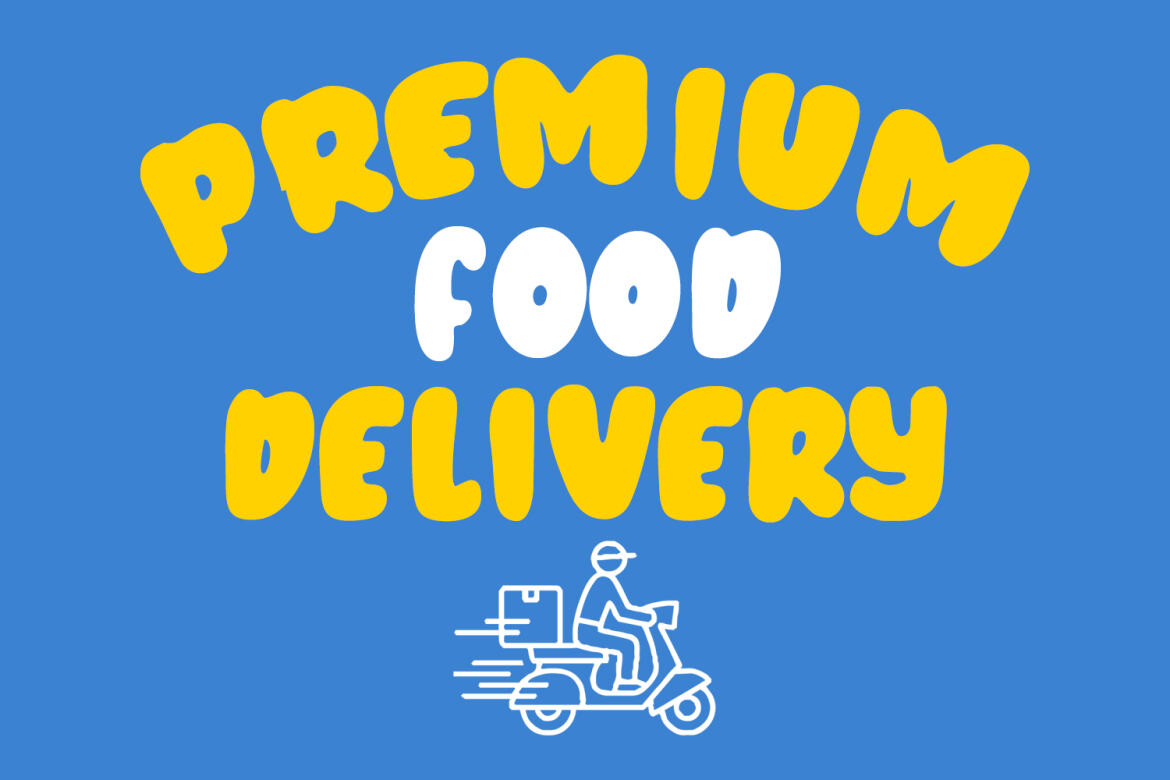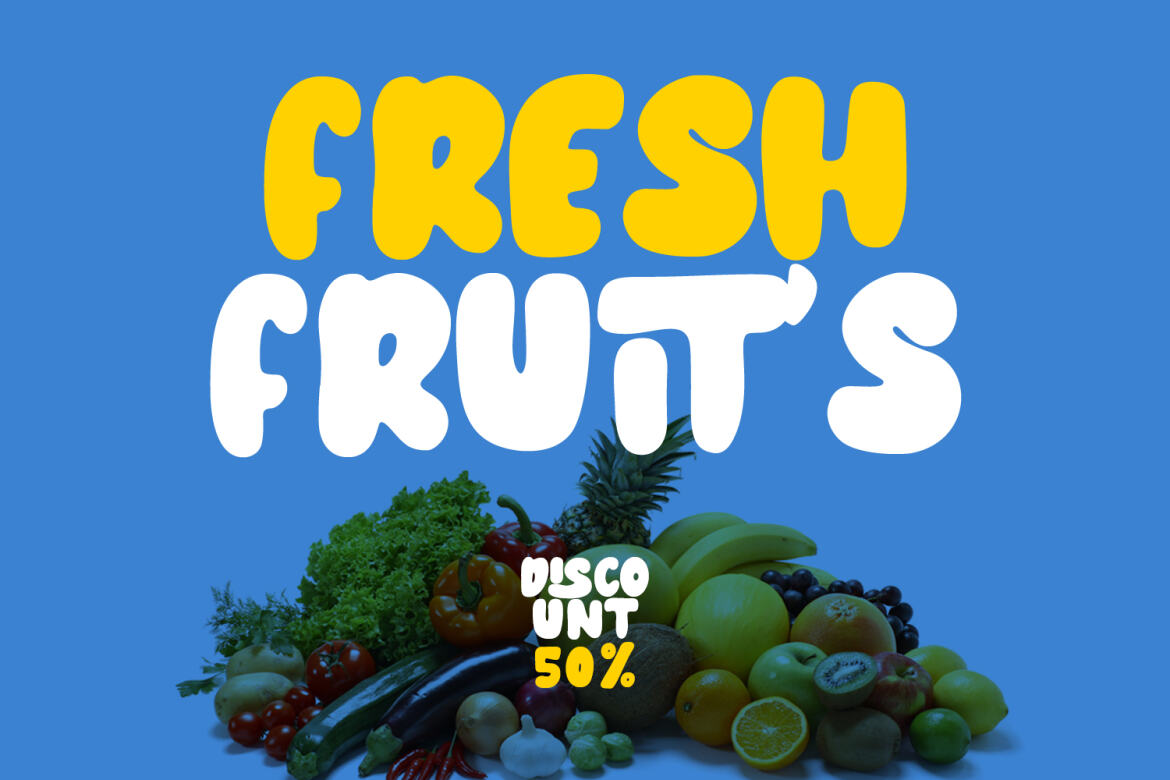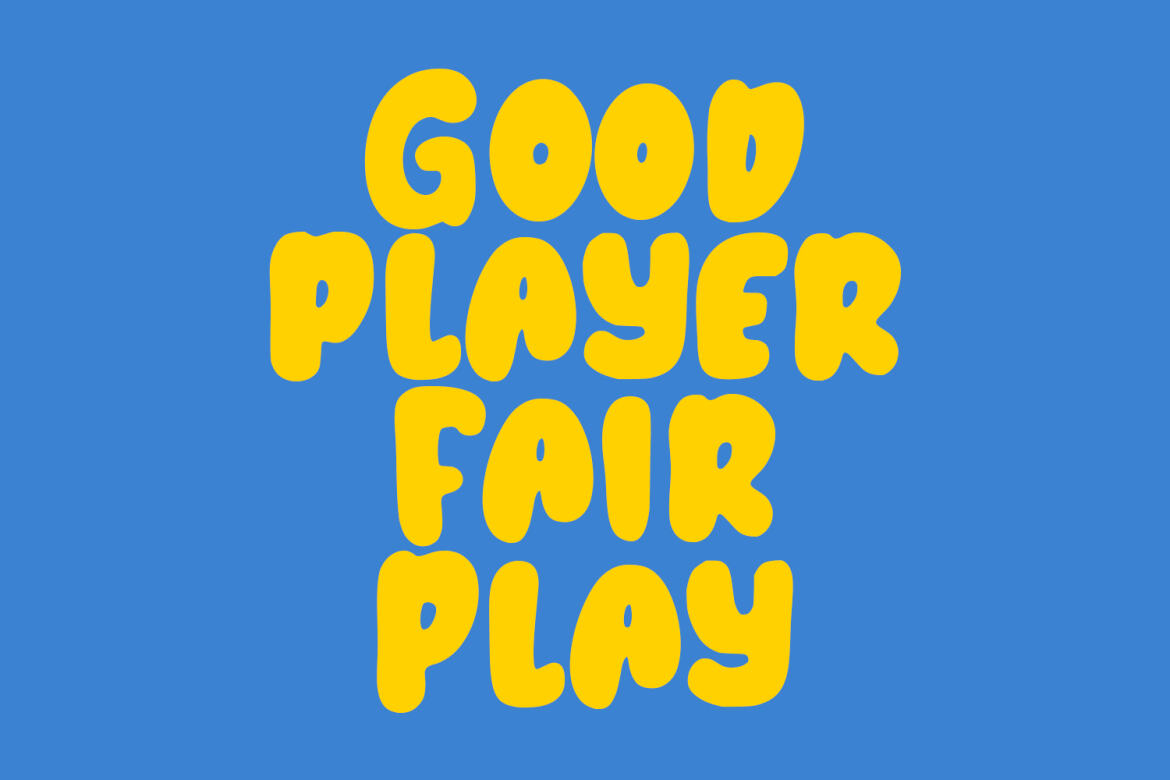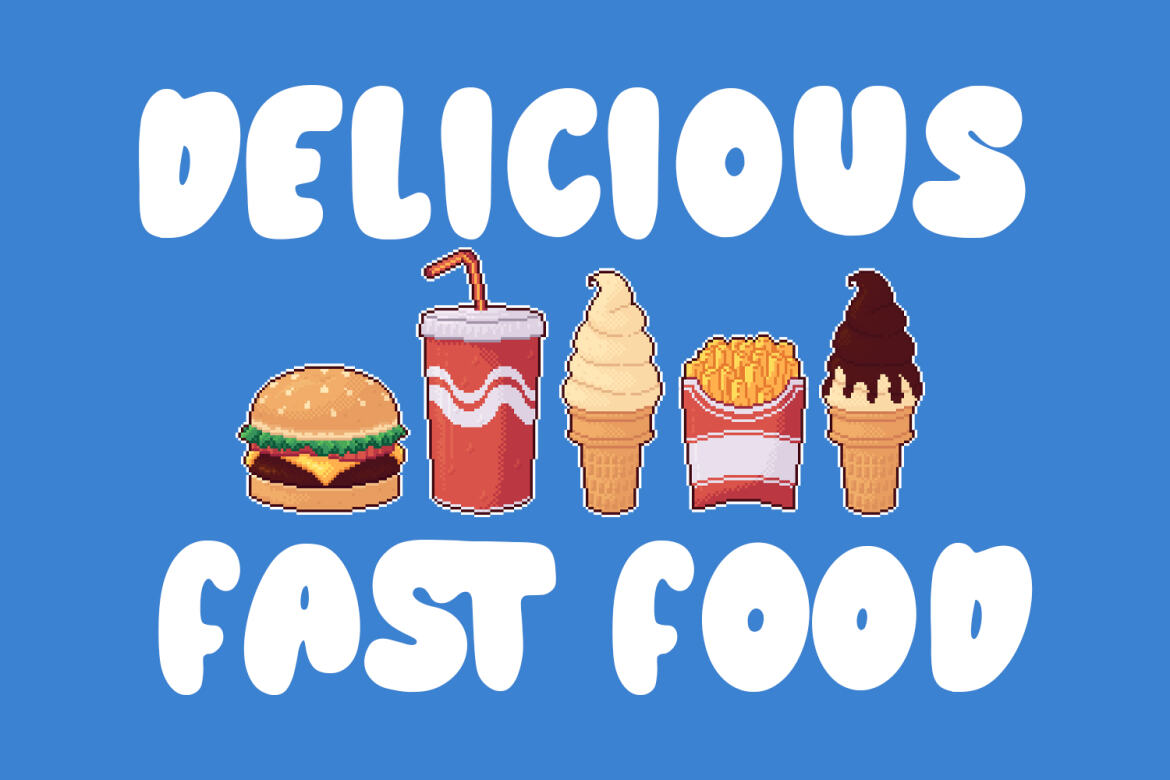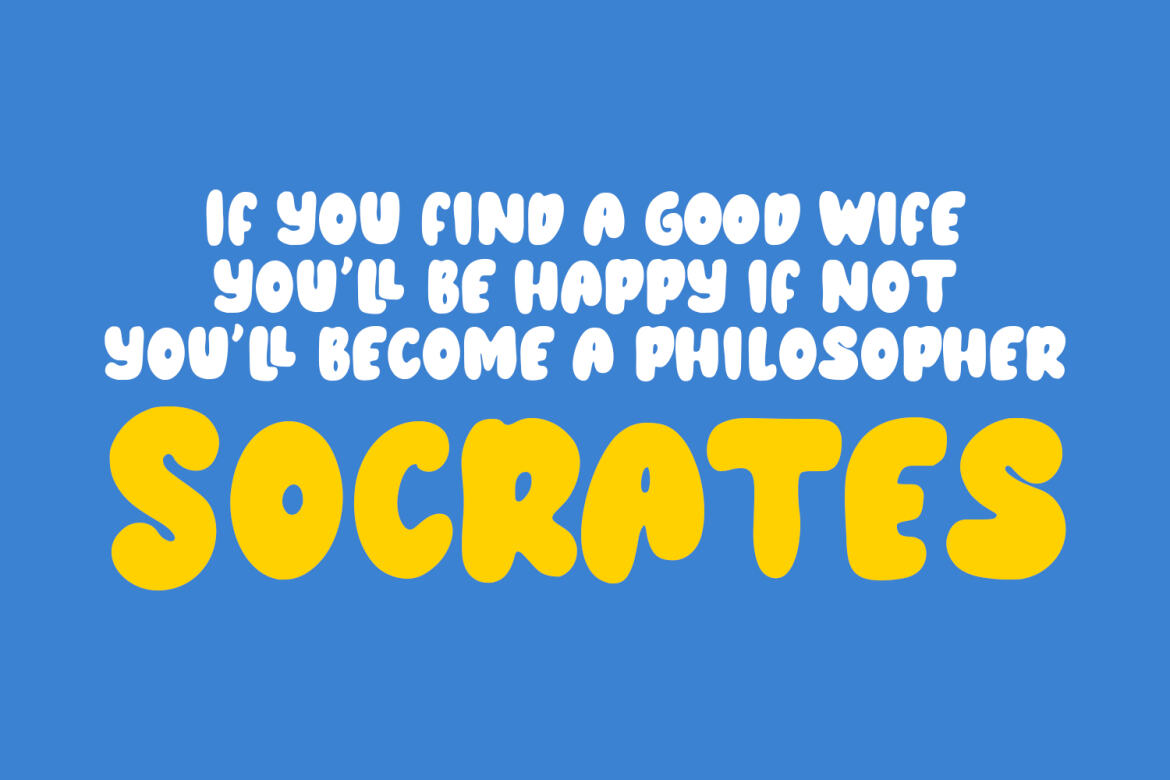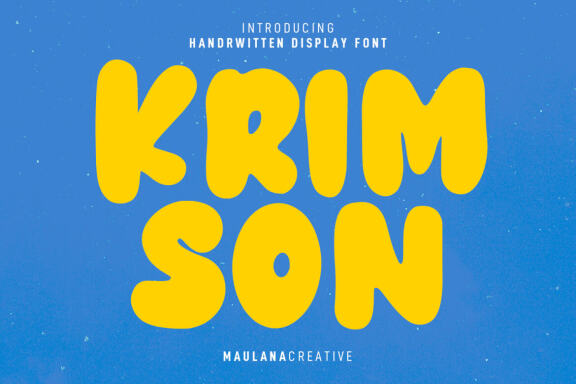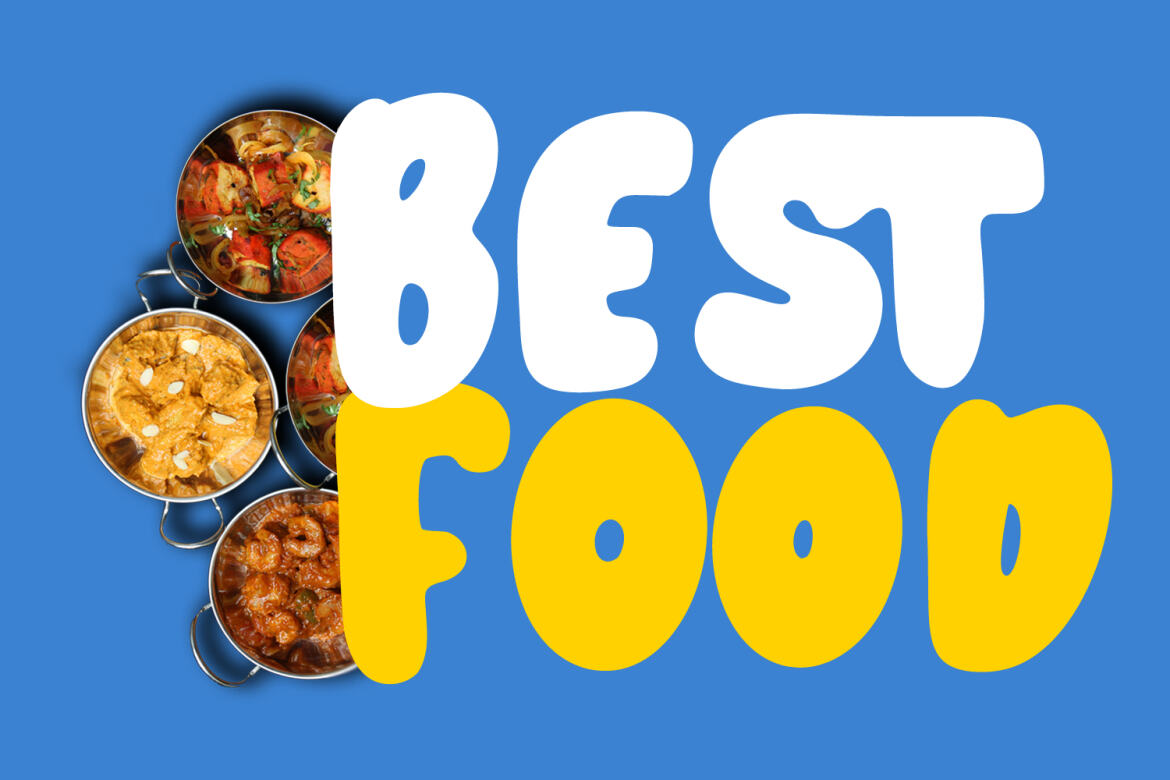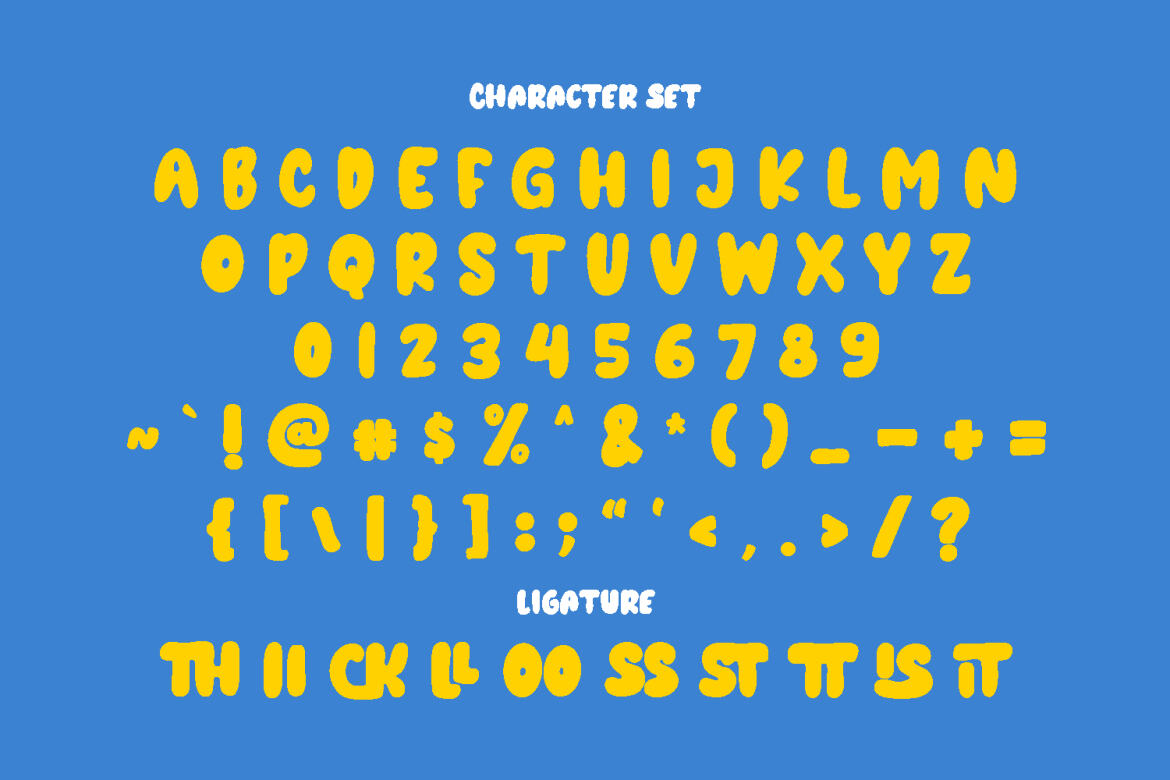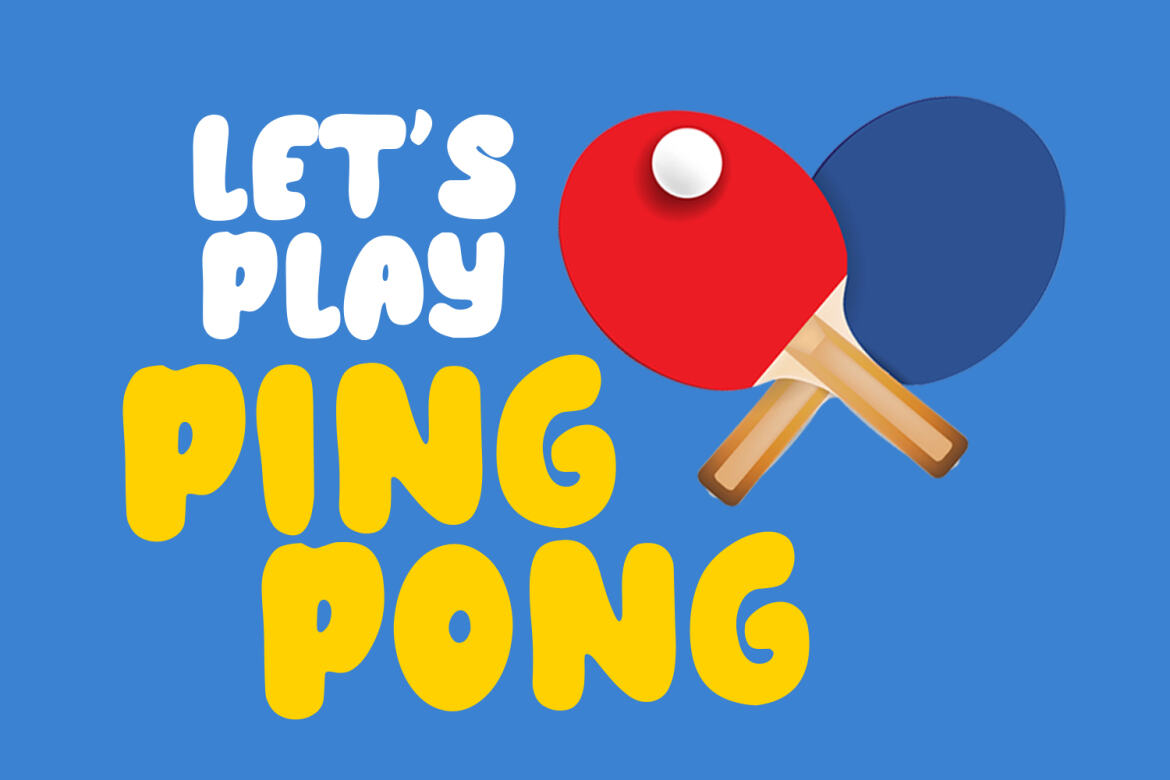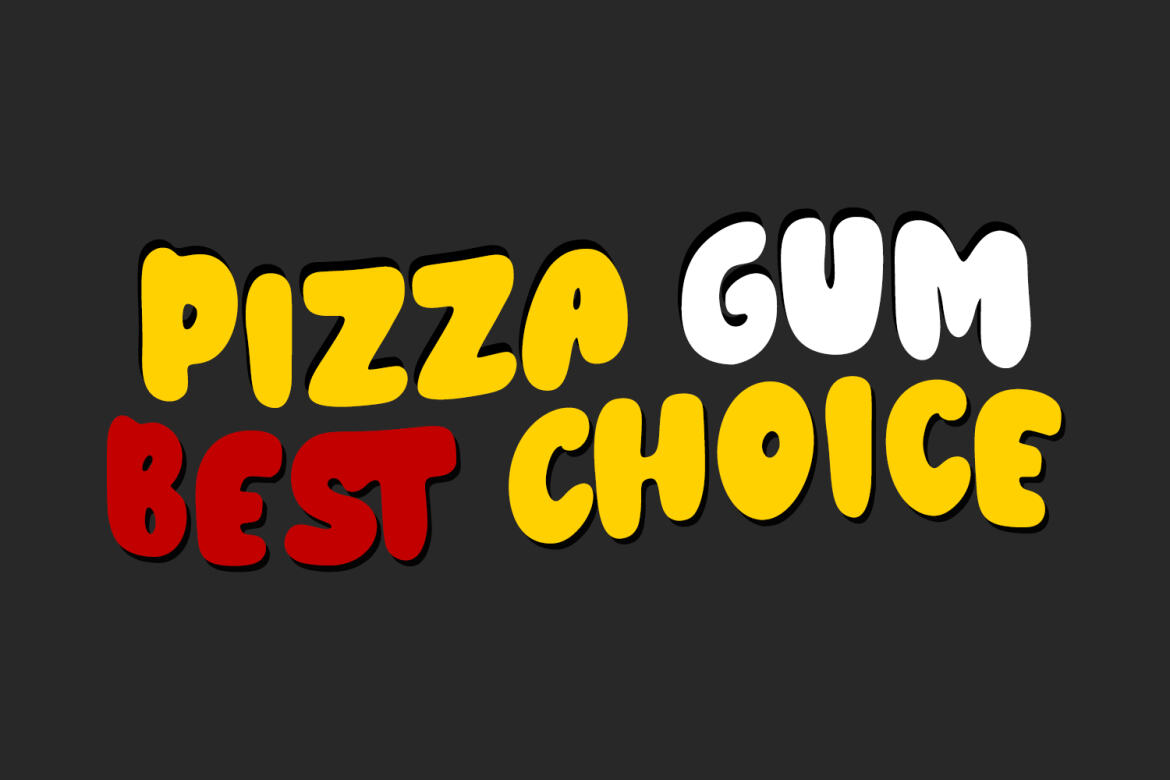
Krimson Cute FREE Handwritten Font
Krimson
Krimson is a bouncy fat cutter handwritten font. With bold stroke, fun character with a bit of ligatures and alternates. To give you an extra creative work. Krimson font support multilingual more than 100+ language. This font is good for logo design, Social media, Movie Titles, Books Titles, a short text even a long text letter and good for your secondary text font with sans or serif. Make a stunning work with Krimson font.